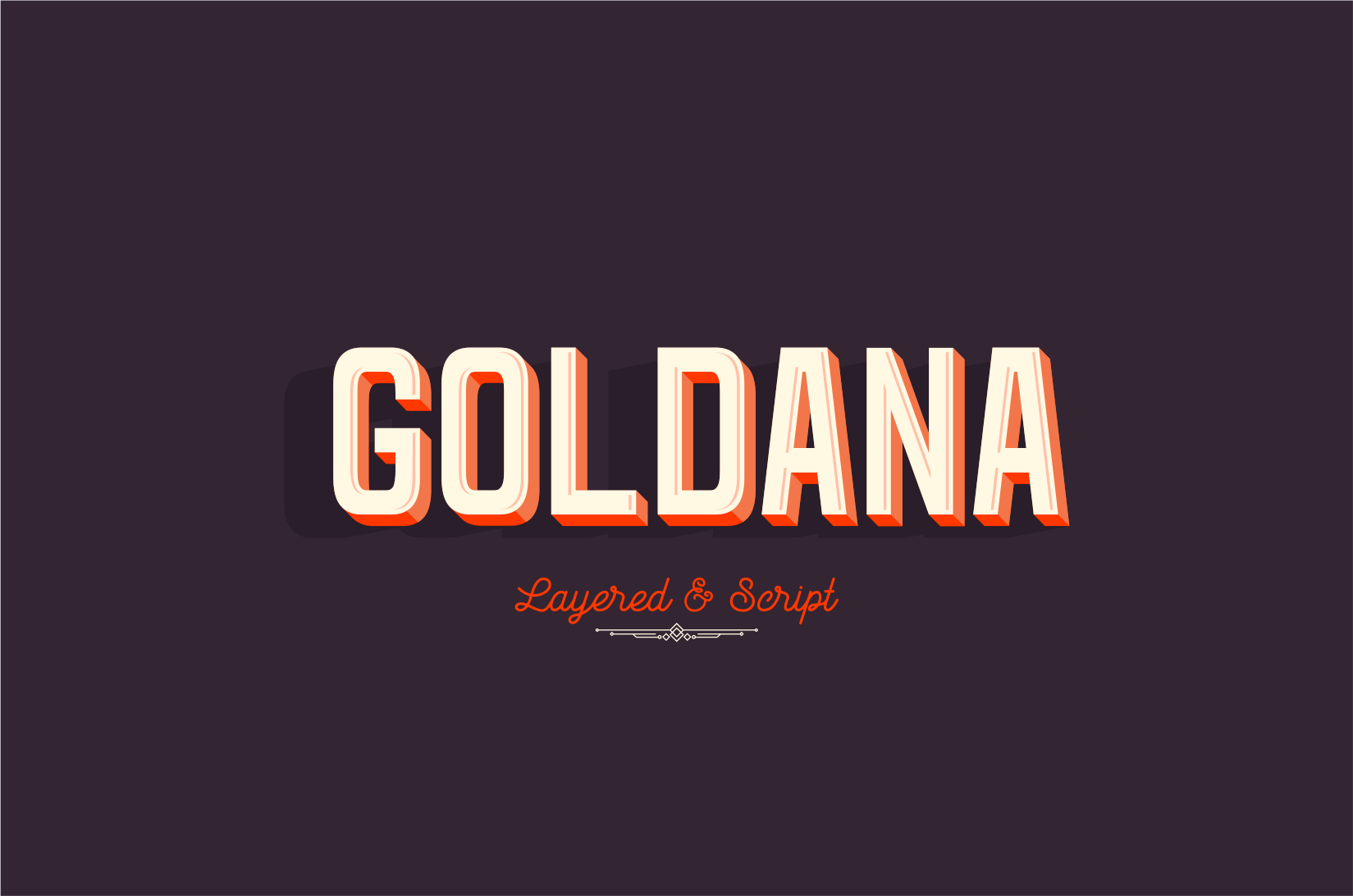
Goldana Fonts + extras
Goldana is a display layered font inspired by art deco. Base layer is regular, add a extrude and extrude shadow to create dimensional look. Several of the style can mixed and match together to look different style and details, there are several font have a stand alone styles and script. The Script fonts is also equipped with opentype features The Shadow, drop strip and Stencil styles are not meant to be layered. Play with extras collection to create badge,vintage feels and art deco style.
The Shadow, drop strip and Stencil styles are not meant to be layered. Languages : Latin and Latin extended
Goldana Layered Fonts
6 Base Layer : Base, Inline, Outline, Dots, Emboss, Stripes
3 Extrude Fonts : Extrude, Extrude detail, Shadow
5 Stand Alone : Drop Strip, Drop Shadow, Stencil, Outline Extrude
6 Solo Styles : Inline Solo, Dots Solo, Emboss Solo, Drop Strip Solo, Drop Shadow Solo, Shadow Solo.
Goldana Script
2 Script : Script, Shadow Script,
1 Script Solo: Shadow Solo
Goldana Extras
- 1 Extras : Extras